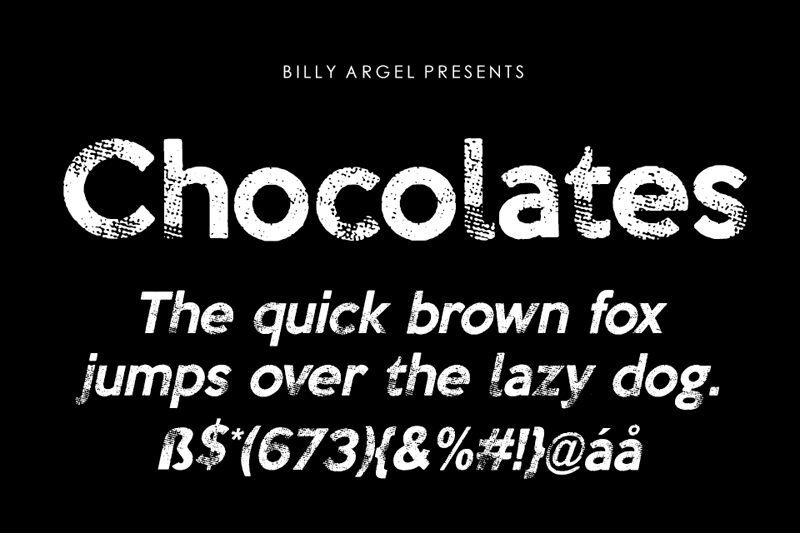
Chocolates Italic Regular
Looking for a unique, eye-catching display font? Look no further than Chocolates Italic! Designed by Billy Argel Fonts, this eroded semi-bold typeface is perfect for projects that need a touch of vintage charm. Use it for your next poster design or branding project to add an edgy, worn-in feel. With its distinctive style and legibility, Chocolates Italic will make your message stand out from the crowd. Whether you're creating packaging, menus, or social media graphics, this font will give your designs a one-of-a-kind look and feel that's sure to impress.